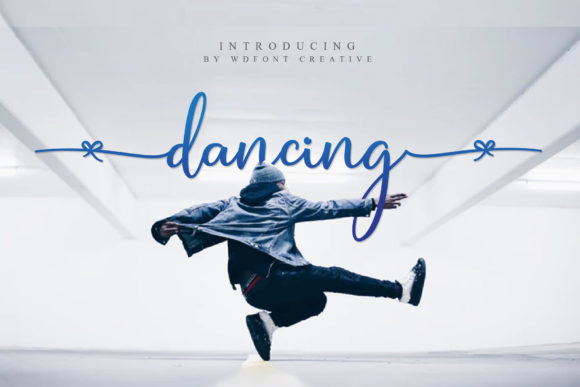
Introducing Dancing Font, the perfect script font designed by WDfont Creative, specifically crafted to transform your creative ideas into captivating masterpieces. With its unique handwritten style, Dancing Font is the ultimate choice for those seeking a font that stands out from the crowd.
Imagine the power of a font that effortlessly captures attention and leaves a lasting impression. Dancing Font does just that, with its elegant curves and graceful strokes that evoke a sense of beauty and sophistication. Whether you're designing a book cover, crafting a logo, or even creating stunning social media posts, this font will elevate your project to new heights.
Indulge your senses with the enchanting beauty of Dancing Font. As you glide your fingers over each letter, you'll feel the passion and dedication that went into its creation. This font is not just a tool for communication; it's a work of art that speaks volumes about your creativity and meticulous attention to detail.
Unleash your imagination and let Dancing Font be your trusted companion on your creative journey. Its versatility allows it to seamlessly adapt to various design styles, making it the perfect choice for any project. From elegant wedding invitations to whimsical children's books, this font effortlessly adapts to suit your vision.
Experience the joy of creating stunning visuals with ease. Dancing Font's user-friendly nature ensures that even beginners can effortlessly produce professional-looking designs. Say goodbye to hours spent tirelessly searching for the perfect font – Dancing Font is here to simplify your design process and save you precious time.
Stand out from the competition and leave a lasting impression on your audience. With Dancing Font, your message will resonate with clarity and charm, drawing readers in with its captivating allure. Whether you're aiming to evoke emotions, convey a sense of elegance, or simply add a touch of playfulness to your designs, this font has you covered.